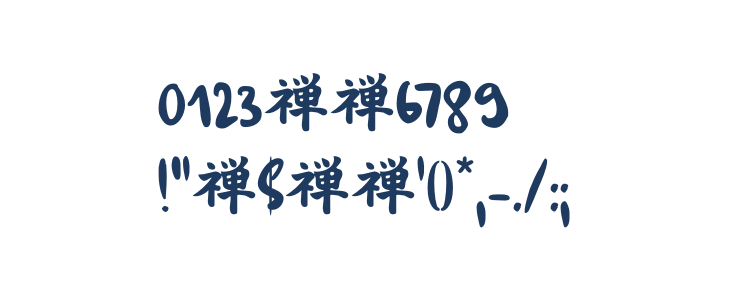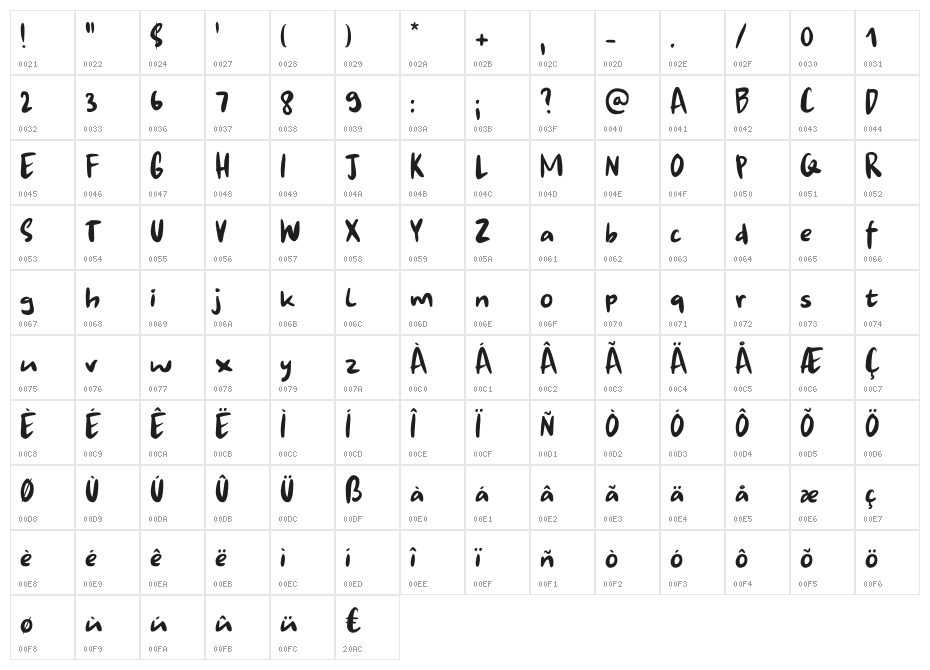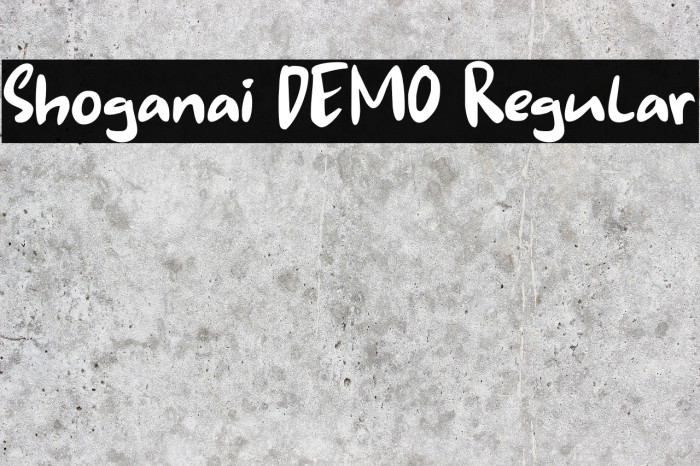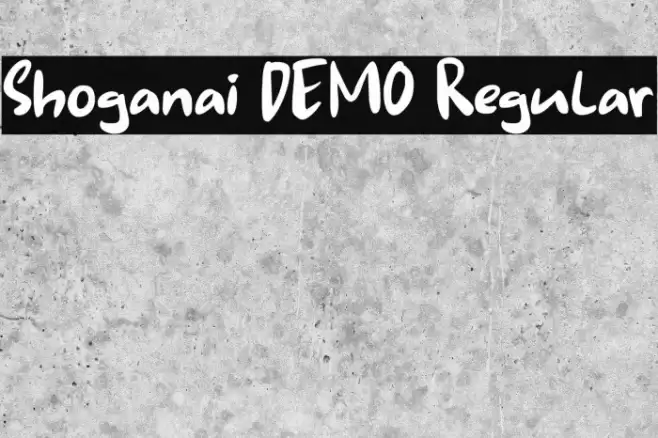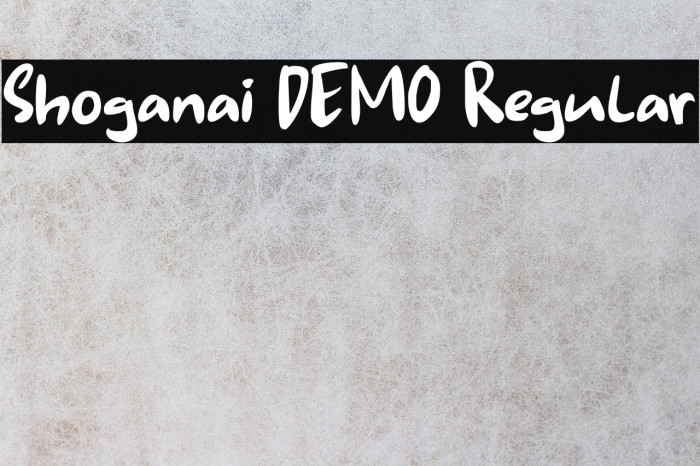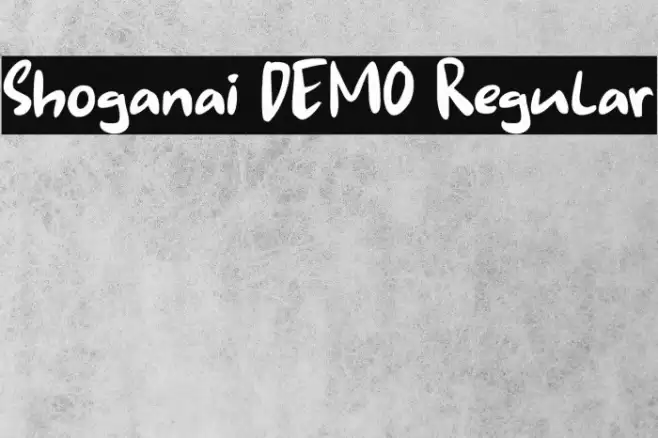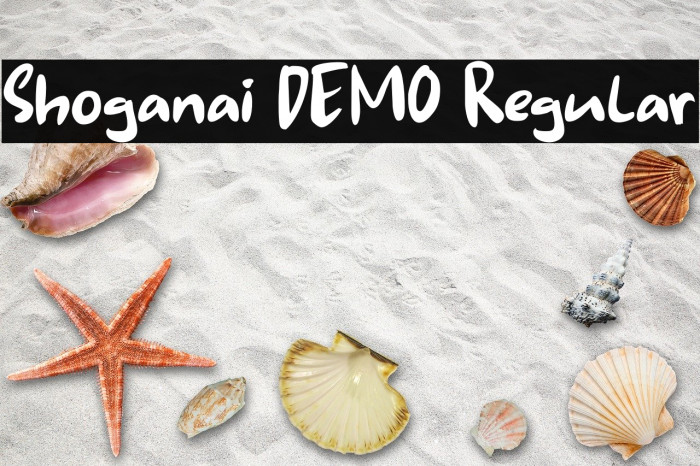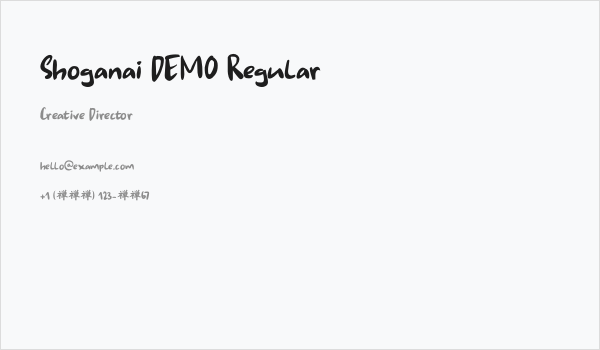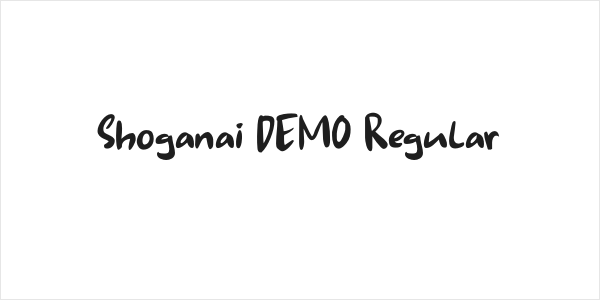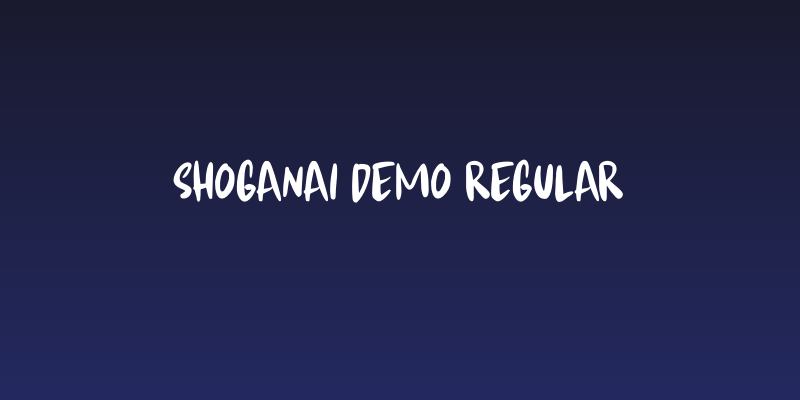
Shoganai DEMO Regular Font
Shoganai DEMO Regular Description
This font features a bold and expressive handwritten style, characterized by its playful and dynamic letterforms. Each character exhibits a slightly irregular shape, adding to its casual and informal appearance. The strokes are thick and rounded, providing a sense of warmth and friendliness. The uppercase and lowercase letters maintain a consistent style, with smooth curves and a slight slant, enhancing the font's energetic feel. The numerals and special characters are equally bold and maintain the same lively aesthetic, making this font suitable for projects that require a personal and approachable touch.
| Proposed Projects | Ideal for greeting cards, children's books, playful branding, and social media graphics. |